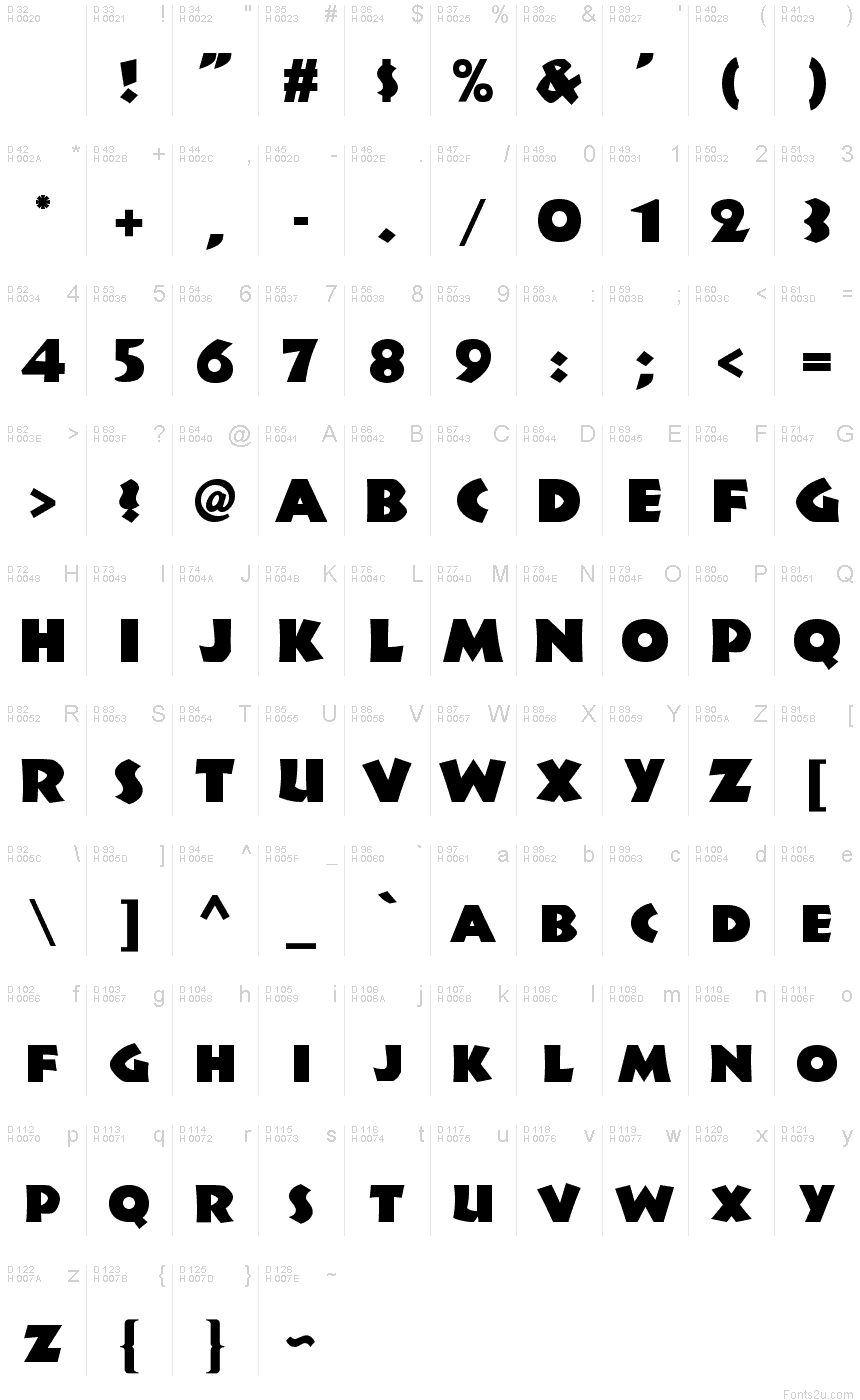
Jungle Fever NF by Nick Curtis of Nick's Fonts is a free cartoon display font built from hefty, uneven capitals with a broad, dark silhouette and comic-strip force. Its broad shapes buckle and tilt, with blunt curves, sliced corners, and sharp internal notches, as changing stroke widths and outward-flaring edges give the letters the lively irregularity of hand-cut forms.
The blocky letters can become part of a cut-paper jungle illustration. That carved, leaf-like geometry suits adventure posters, children's game graphics, tropical drink packaging, and novelty merchandise, where the recurring wedges and bent contours can echo dense foliage, animal shapes, or rough-hewn signs.